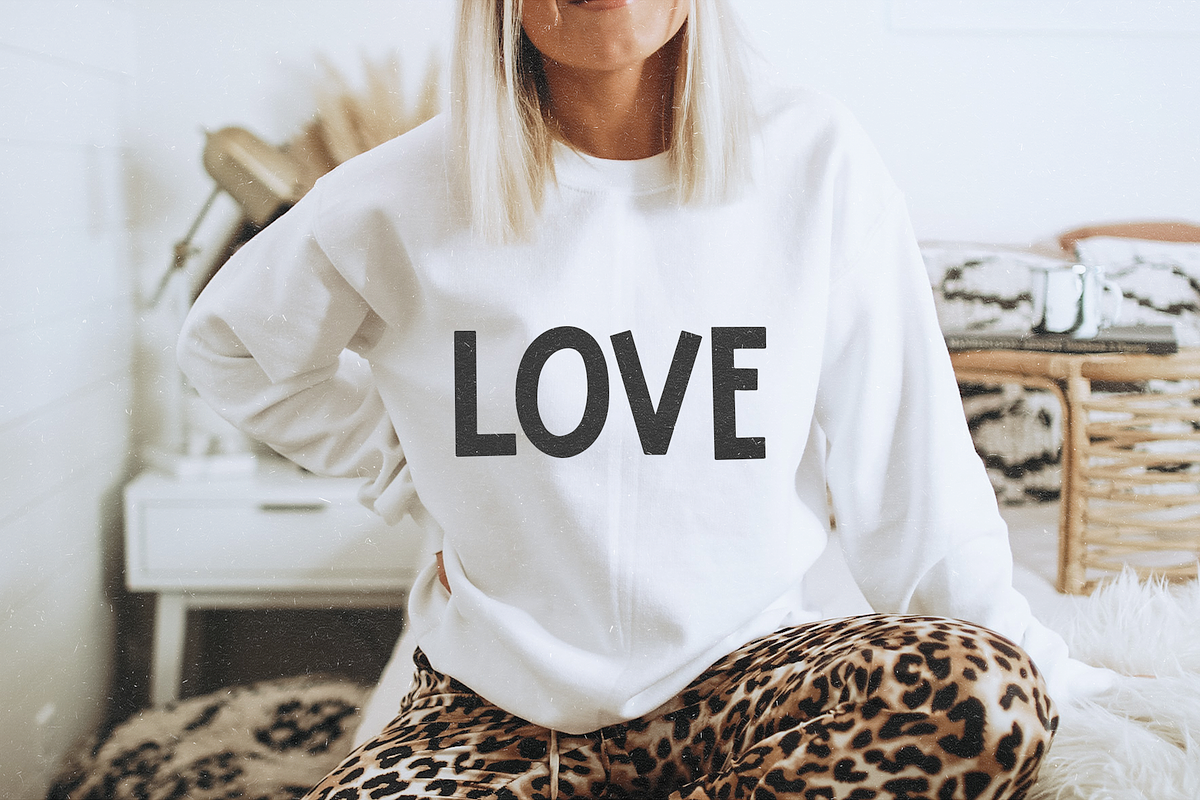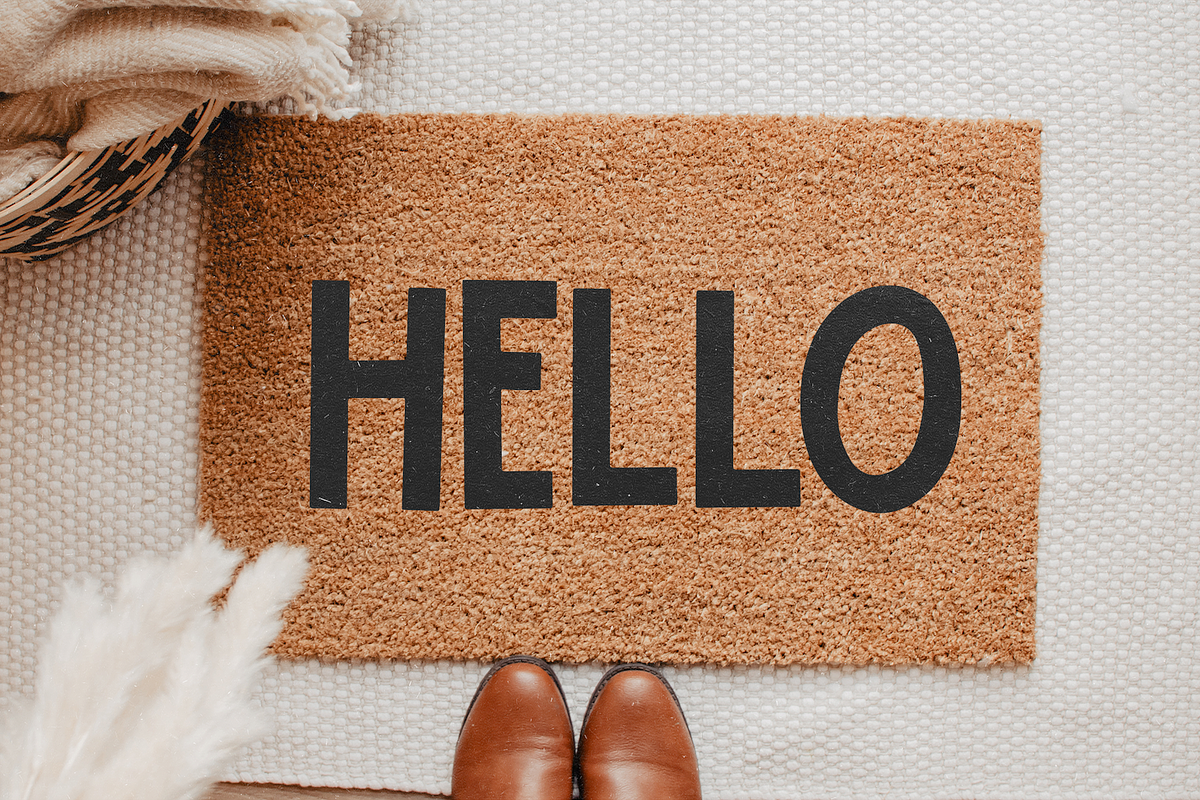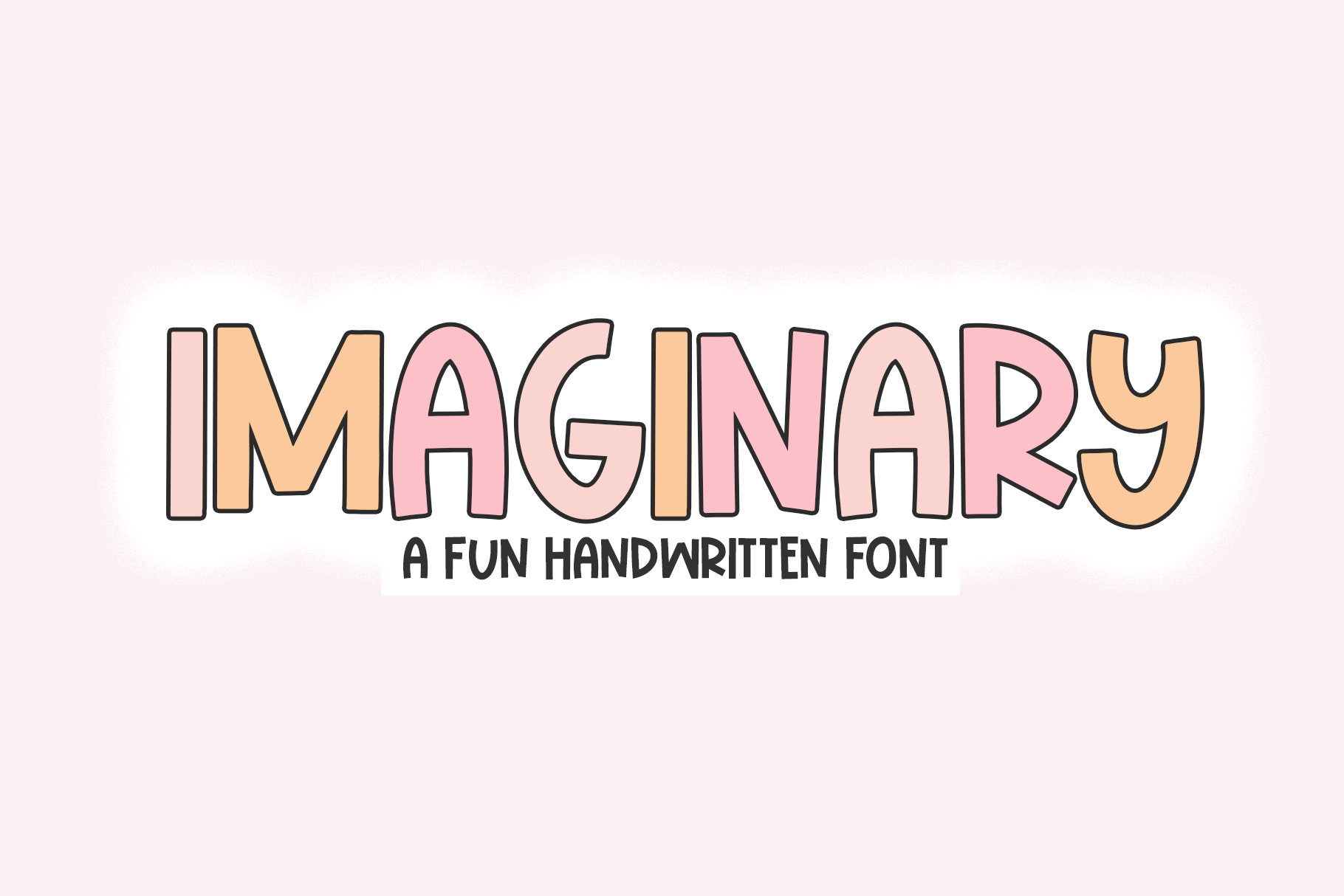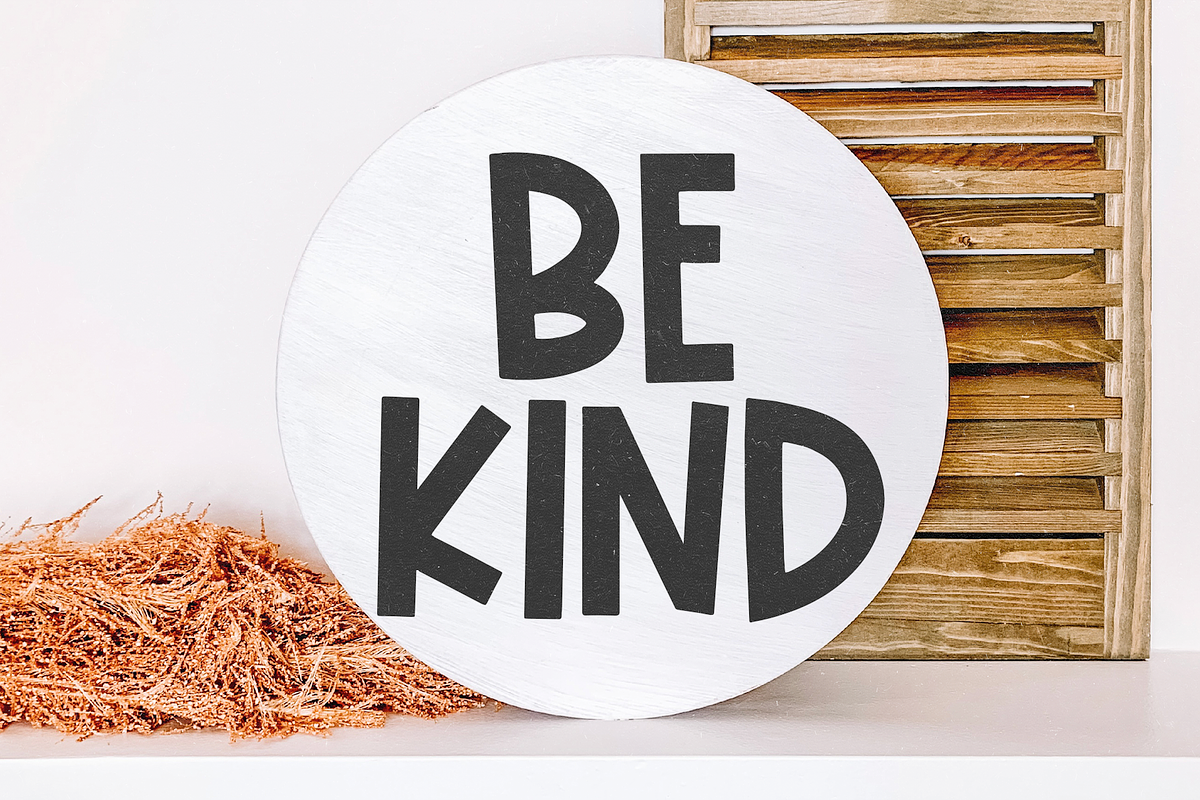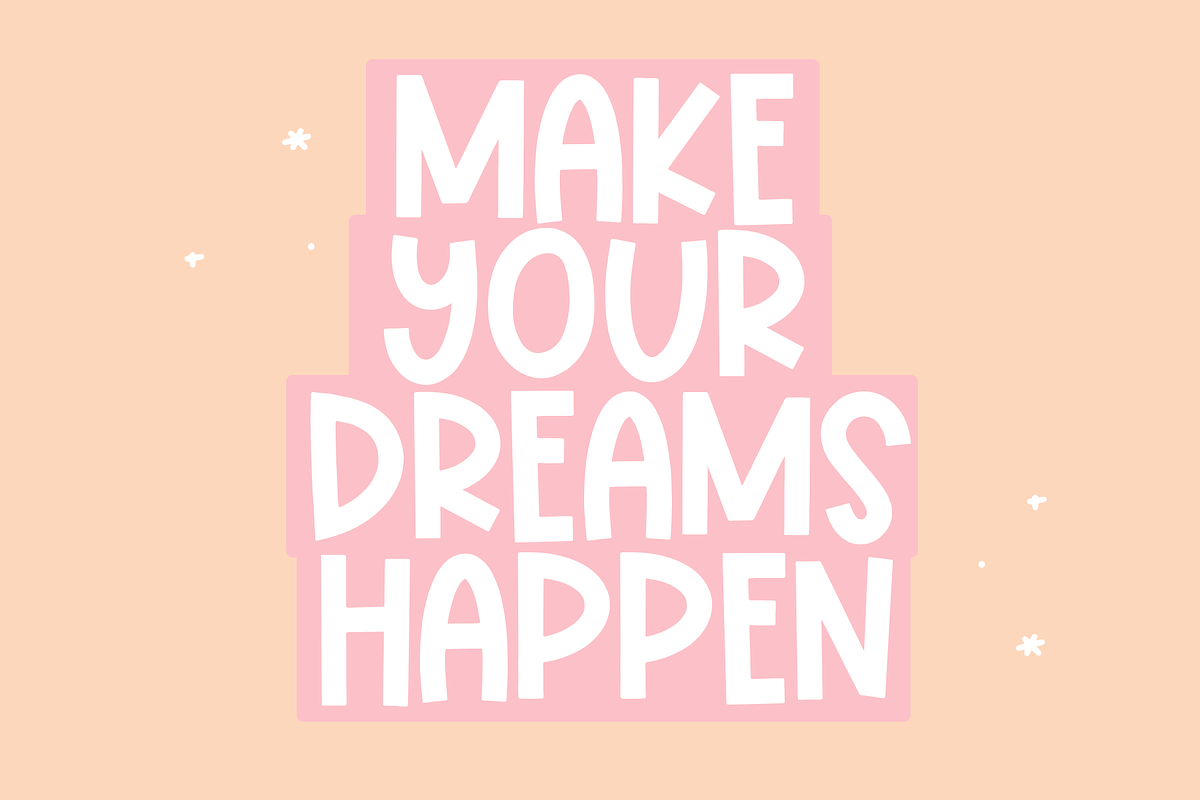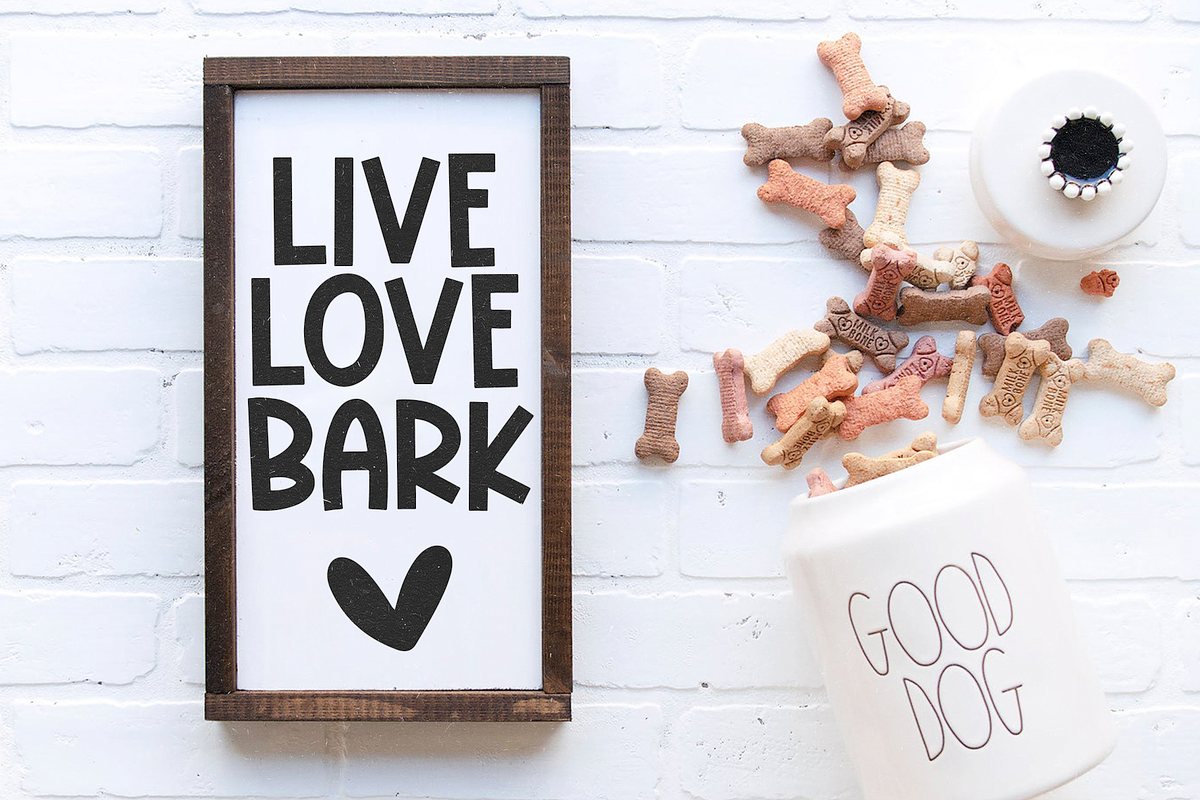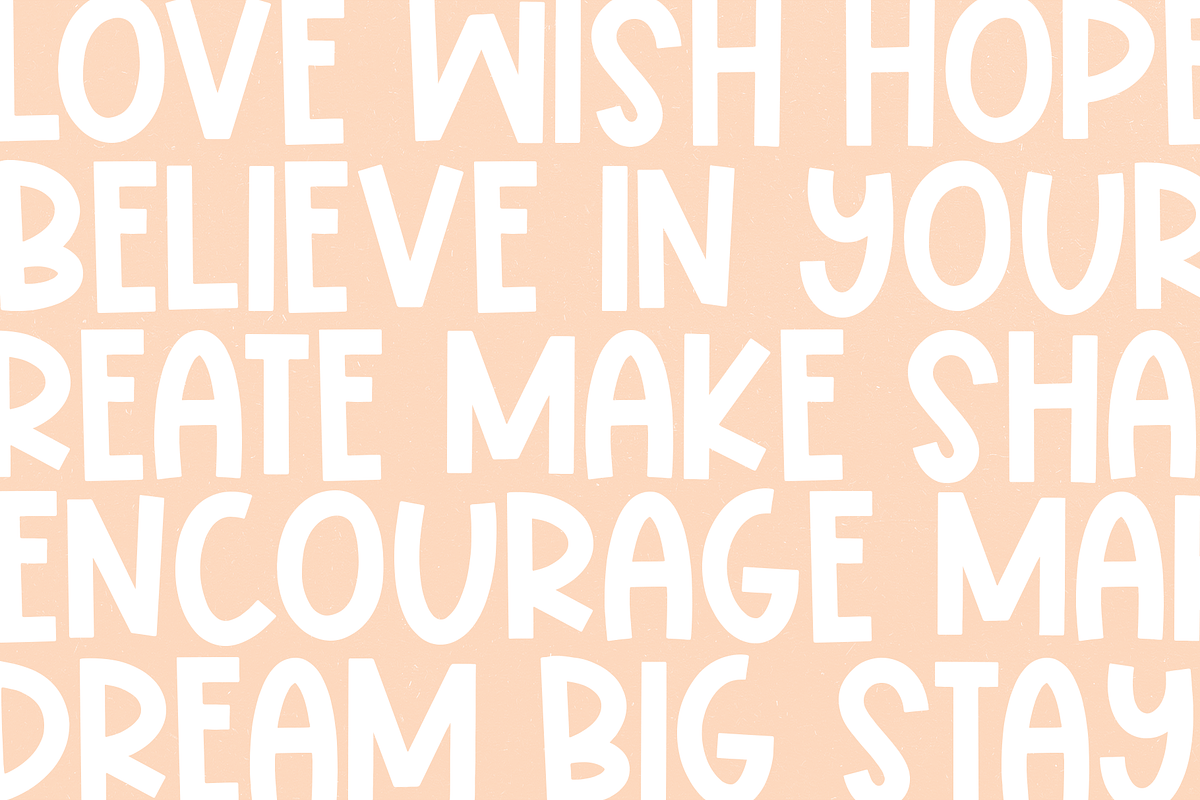
Imaginary | Fun Handwritten Font
Imaginary is a fun handwritten font!
This font is perfect for all of your craft projects, SVG designs, shirts, mugs, stickers, procreate and more!